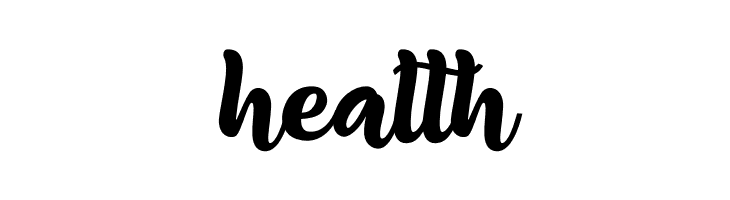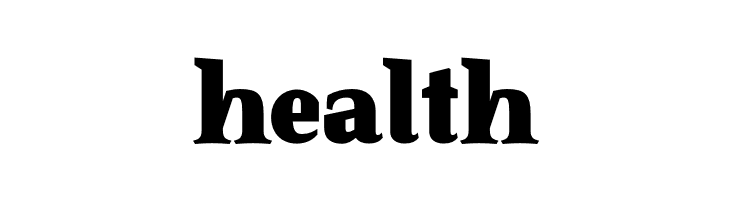
( Fonts by Vanessa Bays - bythebutterfly.com )
A sleek, modern font with tall, narrow letters and a minimalist aesthetic.
( Fonts by Vanessa Bays - bythebutterfly.com )
A playful, modern handwritten font with tall, narrow characters and rounded edges.
( Fonts by Maelle.K - Thomas Boucherie )
A cursive, handwritten font with elegant loops and artistic flair.
( Fonts by Maelle.K - Thomas Boucherie )
A playful, cursive script font with flowing, interconnected letters.
( Fonts by Maelle.K - Thomas Boucherie )
An elegant and flowing script font with smooth, continuous strokes.
( Fonts by Maelle.K - Thomas Boucherie )
A graceful and elegant script font with flowing, cursive letterforms.
( Fonts by Maelle.K - Thomas Boucherie )
An elegant, ornate script font with intricate flourishes and calligraphic style.
( Fonts by Erin Manning )
A playful, handwritten font with thin, flowing strokes and a whimsical style.
( Fonts by EvasUniqueFonts )
A playful, rounded font with smooth curves and a friendly appearance.
An elegant script font with flowing, interconnected letters and ornate flourishes.
( Fonts by EvasUniqueFonts )
An intricate decorative font with elaborate patterns and Art Nouveau influences.
( Fonts by Tiffany Willett )
A playful handwritten font with smooth, rounded edges and consistent stroke width.
A bold, angular font with high contrast and dramatic flair.
A playful, rounded font with bold, smooth curves.
( Alexander Tiunov - creativemarket.com/Besttypeco )
A decorative cursive font with elegant loops and dynamic contrast.
( Jaime Rangel Castro )
A lively and elegant script font with flowing, cursive letterforms.
( Qkila - Quentin Aquila - www.creativefabrica.com/designer/qkila/ )
A bold, dynamic script font with calligraphic influences and fluid strokes.
( Fonts by Cahya Sabunge )
A bold, geometric font with a futuristic, angular design.
A flowing, cursive font with a natural handwritten style.
A modern sans-serif font with a semi-bold weight and excellent legibility.
A sleek, thin, and italicized font with a modern and elegant design.
A sleek, italicized sans-serif font with smooth curves and modern style.
A modern sans-serif font with a clean, balanced, and professional appearance.
( Fonts by Original fonts by Christian Thalmann (Catharsis Fonts), Modifications by Cristiano Sobral - Personal-use only. For commercial use please contact owner. )
A sleek, modern typeface with clean lines and a minimalistic design.
( Fonts by Original fonts by Christian Thalmann (Catharsis Fonts), Modifications by Cristiano Sobral - Personal-use only. For commercial use please contact owner. )
An elegant, extra light italic font with sleek, elongated characters.
( Fonts by Original fonts by Christian Thalmann (Catharsis Fonts), Modifications by Cristiano Sobral - Personal-use only. For commercial use please contact owner. )
A modern sans-serif font with clean lines and balanced spacing.
A modern, light sans-serif font with clean lines and balanced proportions.